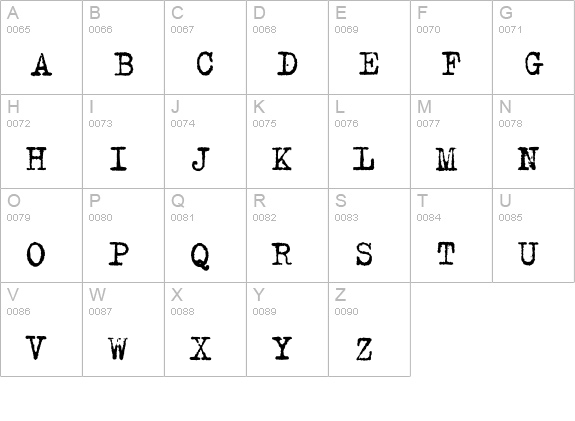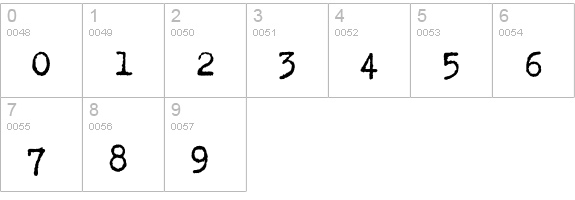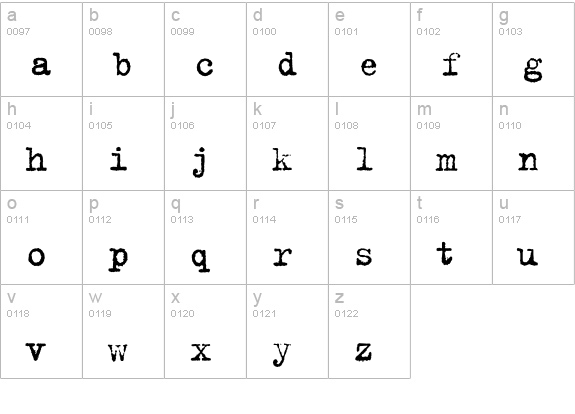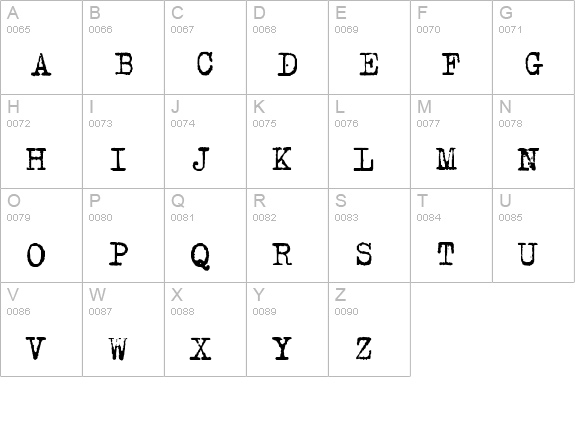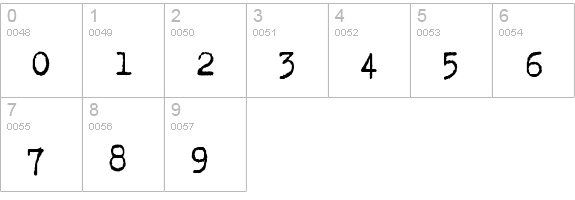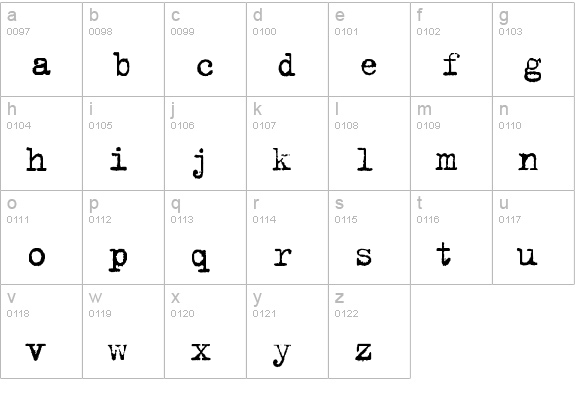
Introducing Trixie-Plain font, a versatile and captivating typeface that will add a touch of elegance and sophistication to your designs. This font embodies a unique blend of modernity and classic charm, making it the perfect choice for a wide range of projects. With its sleek lines and balanced proportions, Trixie-Plain font effortlessly captures attention and exudes a sense of professional refinement. Whether you're working on a logo, branding materials, invitations, or any other creative endeavor, this font will elevate your design to new heights. But what sets Trixie-Plain font apart from the rest is not just its aesthetic appeal. It's the fact that it is freely available to download at FontsMarket.com. Yes, you read that right - this remarkable font can be yours without any cost. Now you can enhance your projects with a high-quality font without breaking the bank. Designed with utmost care and attention to detail, Trixie-Plain font offers a wide range of characters, including uppercase and lowercase letters, numerals, punctuation marks, and special symbols. Its extensive character set ensures that you have all the tools you need to create visually stunning and cohesive designs. Whether you're a seasoned graphic designer or just starting your creative journey, Trixie-Plain font is a must-have in your font collection. Its versatility and elegance will inspire your creativity and help you leave a lasting impression on your audience. So don't miss out on this incredible opportunity to enhance your designs with Trixie-Plain font. Visit FontsMarket.com today to download this font for free and elevate your creative projects to new heights.